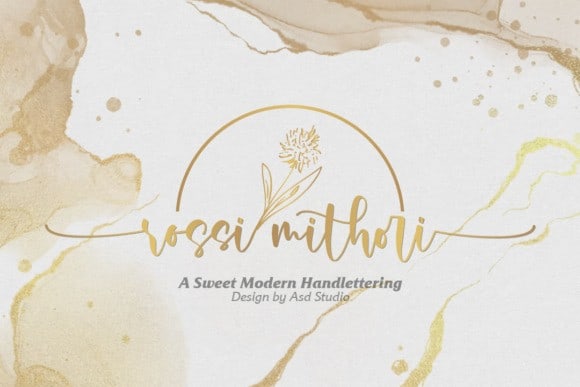
Rossi Mithor Calligraphy Font
Rossi Mithor Calligraphy Font is sweet calligraphy font, including Regular. This font is casual and pretty with swashes. Rossi Mithor is designed and shared by Asd Studio.
Rossi Mithori is a script font created with love, sincerity, and patience. can be used to make invitation writing, lettering, and all graphic design needs.
This font is only equipped with 2 stylistic sets, but it will still look beautiful; and some alternative characters that will make your design look more attractive and beautiful.